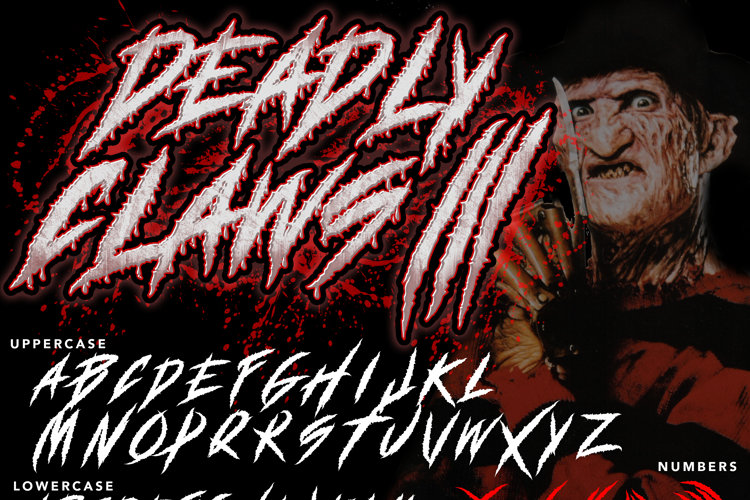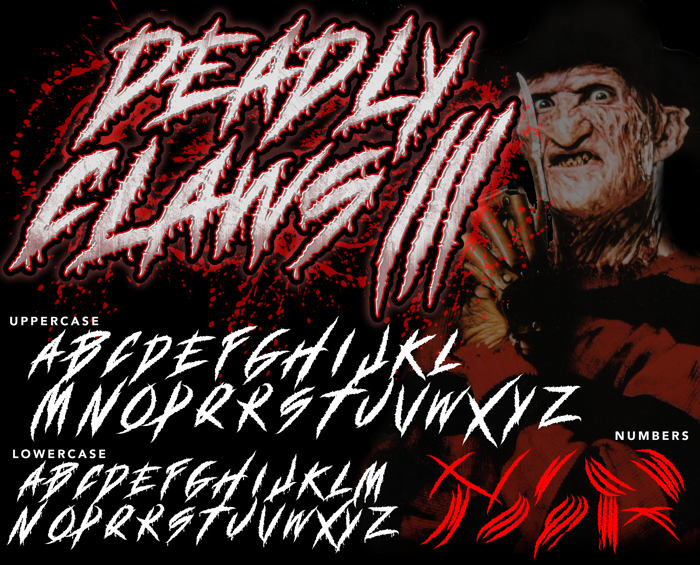
DEADLY CLAWS Font
About DEADLY CLAWS Font
DEADLY CLAWS
- Heavy textured brush inspired font perfect on your projects, covers, etc.
- Lifestyle modern horror font for branding, website, mobile app etc.